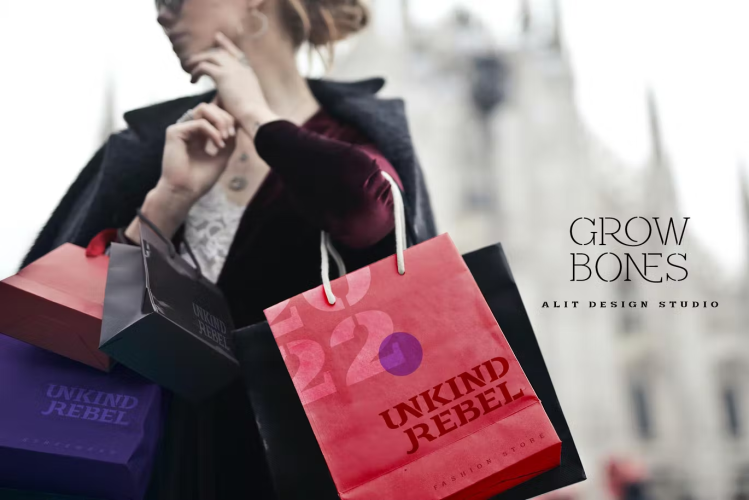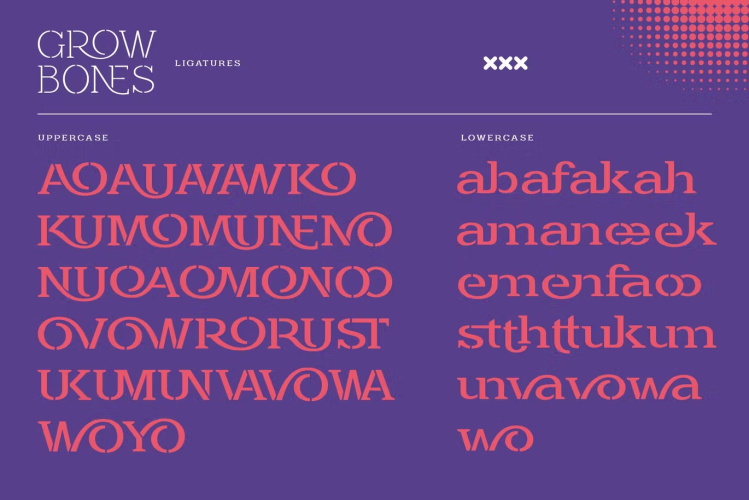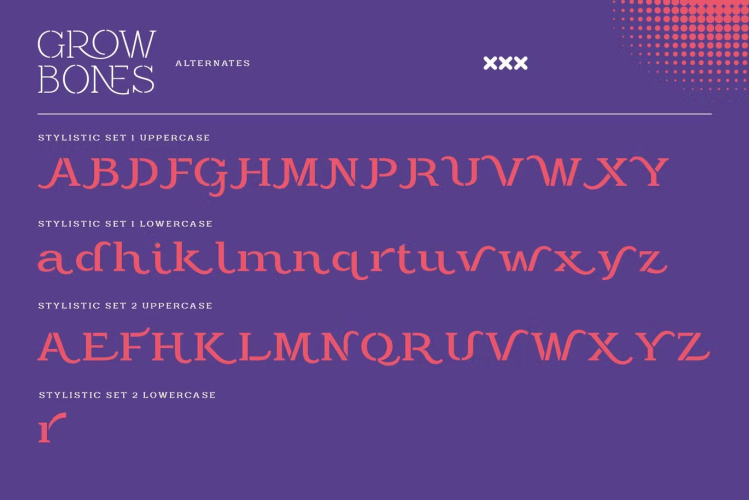
Grow Bones Font
Introducing Grow Bones Typeface
The Grow Bones font is designed with a serif font concept that has a sporty display stencil style. Irregular dynamic shapes but impressively regular and unique make the font “Grow Bones” different and steal attention.
Serif typefaces such as “Grow Bones” are very easy to apply to any design, especially those with an sporty, modern and strong, besides that this font is very easy to use both in design and non-design programs because everything changes and glyphs are supported by Unicode (PUA).
The “Grow Bones”contains 571 glyphs with many unique and interesting alternative options. Plus, there’s a cool serif font family for header and description text from thin to heavy to thin. In the poster preview all the letters are in the Grow Bones typeface.
Where Grow Bones Font works best
Reports, white papers and book interiors hold the eye longer when the text face has real serifs; Grow Bones Font keeps that rhythm without looking old-fashioned.
Food, spirits and cosmetics brands lean on serif wordmarks to suggest age and care. Grow Bones Font gives that signal at wordmark size.
Set Grow Bones Font for the body of an award or a diploma and keep the recipient name in a script; the pairing is what makes a document feel official.
What kind of work does Grow Bones Font suit?
It sits in the Serif Fonts group and reads as display, modern, serif, serif fonts. That makes it a candidate wherever those qualities help: headings, packaging, social graphics and brand work. Set it at the size you plan to use before deciding.